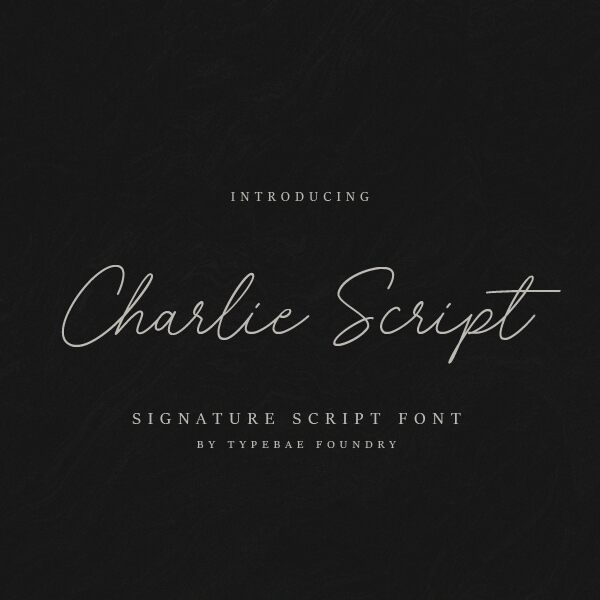
Charlie Script
Charlie Script font, designed by Typebae Foundry, exudes an effortless charm with its graceful handwritten style reminiscent of elegant signatures. The delicate strokes of this light font interplay beautifully, creating a sense of fluidity and personal touch that captivates the eye.
Its unique characteristics make it ideal for a range of design contexts-from sophisticated invitations and heartfelt greeting cards to branding that seeks to convey warmth and authenticity. The refined aesthetic not only enhances visual appeal but also establishes an intimate connection with the audience, making Charlie Script a versatile choice for projects yearning for a human touch. Whether used in streamlined headings or flowing body text, this font adds an inviting sophistication that effortlessly elevates any design work.